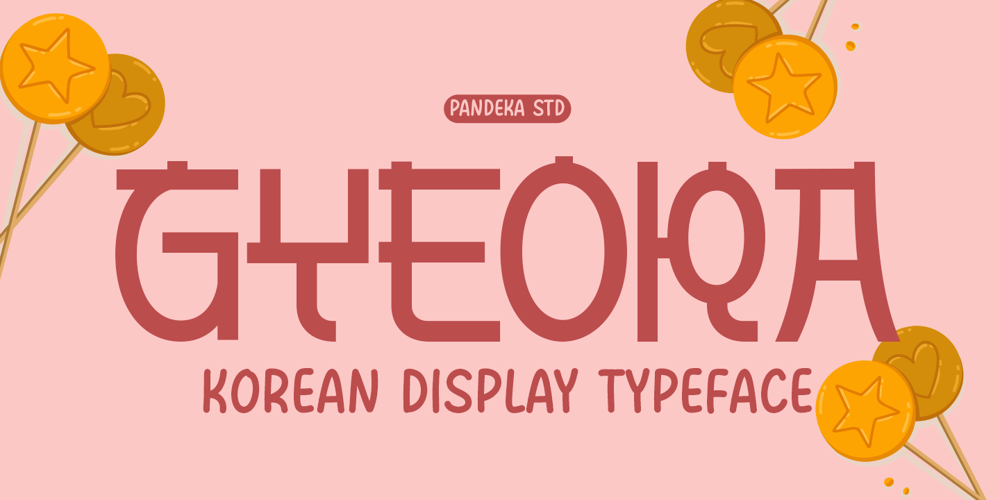
Gyeora
Gyeora font
Gyeora Font Family was designed by Sagara Nararya and published by Pandeka Studio. Gyeora contains 4 styles and family package options. Gyeora – A versatile Korean display typeface that combines bold typography with traditional aesthetics and modern design. With 4 unique styles (Outline, Outline Slant, Regular, Slant), Gyeora is perfect for cultural projects, branding, logos, posters, and designs that demand a unique and stylish touch.What’s Included: Main Files formats 4 Styles: Outline, Outline Slant, Regular, Slant Full Character Set: uppercase, lowercase, numbers, symbols, punctuation and ligature 80+ Ligatures and alternates Easy to Use: Compatible with both PC & Mac Compatible with Adobe Illustrator, Photoshop, Microsoft Word, Canva, and more PUA Encoded: Fully accessible without additional software Language Support: Danish, English, Estonian, Filipino, Finnish, French, Friulian, Galician, German, Gusii, Indonesian, Irish, Italian, Luxembourgish, Norwegian Bokmål, Norwegian Nynorsk, Nyankole, Oromo, Portuguese, Romansh, Rombo, Spanish, Swedish, Swiss-German, Uzbek (Latin)Korean Display Typeface Bold Typography Traditional Aesthetic Modern Design Cultural Style Unique LetteringWhether for traditional or contemporary themes, Gyeora brings timeless beauty and cultural charm to your work.Thank you and happy designing!Pandeka Studio